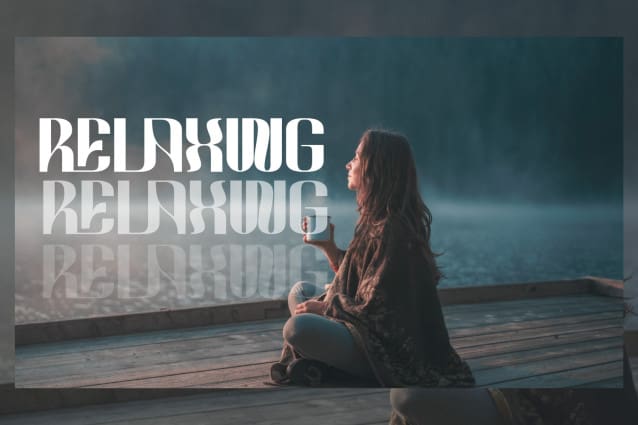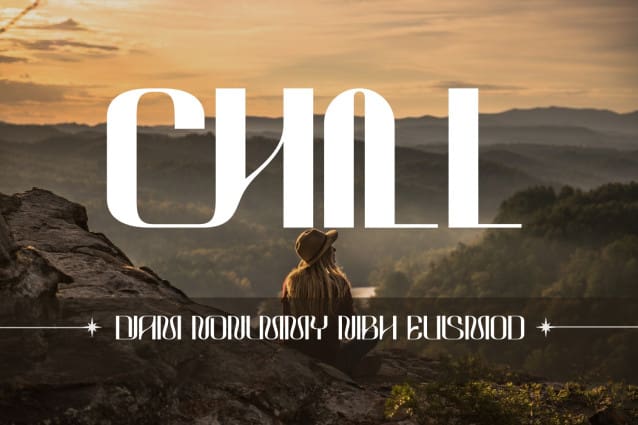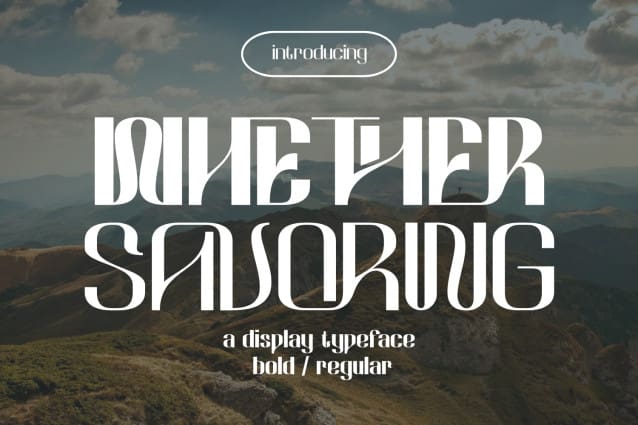
Whether Savoring Font
WHETHER SAVORING FONT is an elegant sans serif. Simple letter shapes with playful ligatures, keeping its legibility high. With its clean lines and precise curves, it’s captivates the eye and commands attention, making it the perfect choice for brands aiming to convey sophistication and style. Each letter is meticulously designed to ensure optimal legibility while exuding an unmistakable sense of refinement.
WHETHER SAVORING was built with OpenType features and includes 100 ligatures, alternate, numbers, punctuation, and it also supports other languages.
AC AD AL AN AR AS AT AU AV BE CA CE CH CO CT DE DI EA EC ED EE EL EM EN EP ER ES ET FE FO FR GE HA HE HI HO IE IC IL IN IO IR IS IT JU KE LA LE LI LL LO LY MA ME MI NC ND NE NG NO NT NS OC OF OM ON OO OP OR OT OU OW PA PR RA RD RE RI RO RS RT SE SH SI SO SS ST TA TE TH TI TO TR TT UM UN UR VE WI WO